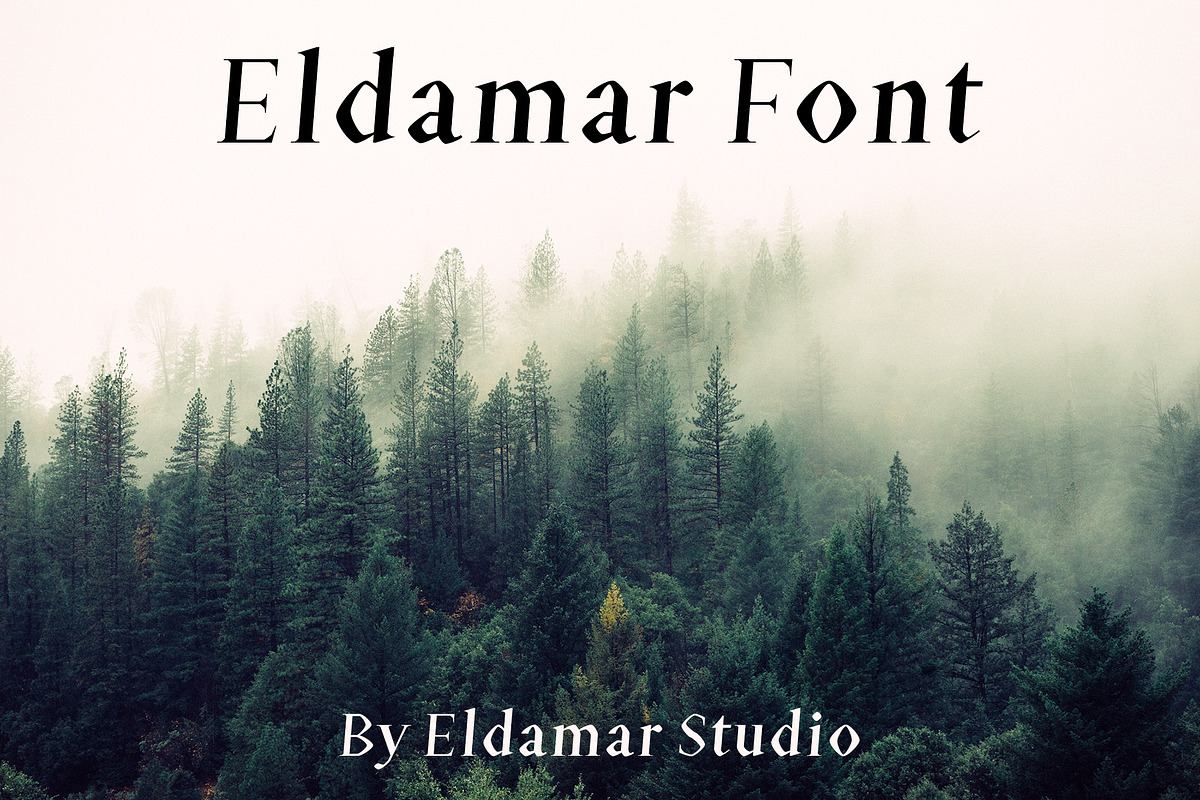
Eldamar Font Free Download
Eldamar Font Free Download is a mystical and elegant serif typeface inspired by fantasy lore and ancient scripts. With its ornate curves, tall proportions, and timeless aesthetic, Eldamar is perfect for book covers, fantasy games, movie titles, branding, and magical event invitations.
This font evokes a sense of wonder and storytelling, making it an excellent choice for projects that need a touch of enchantment. Whether you're crafting an epic novel design or building a fantasy-themed logo, Eldamar offers both readability and unique character.